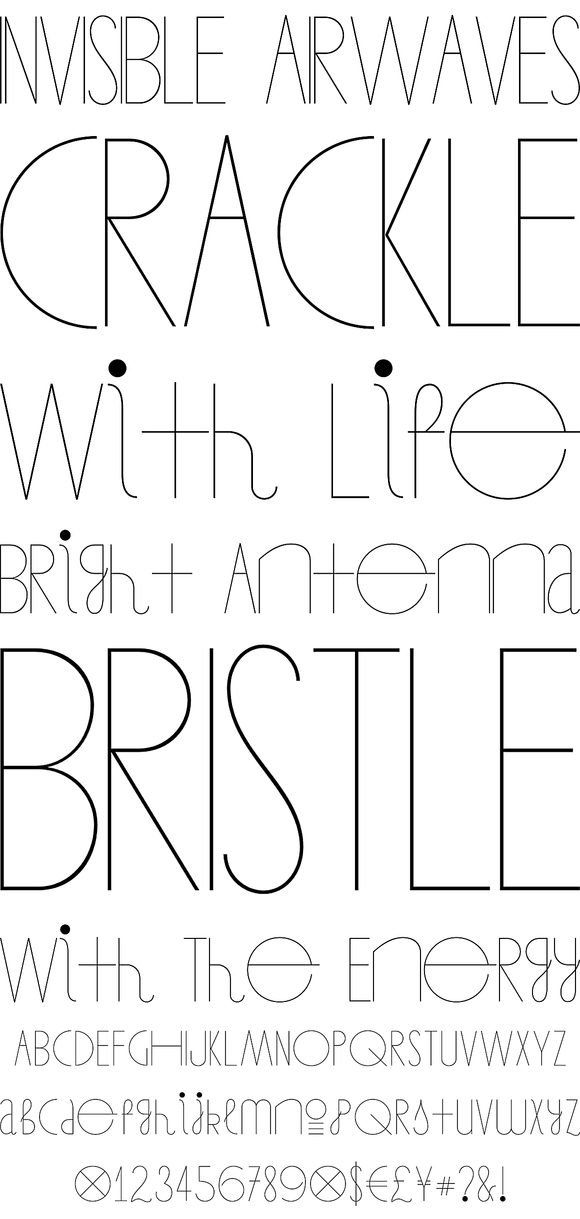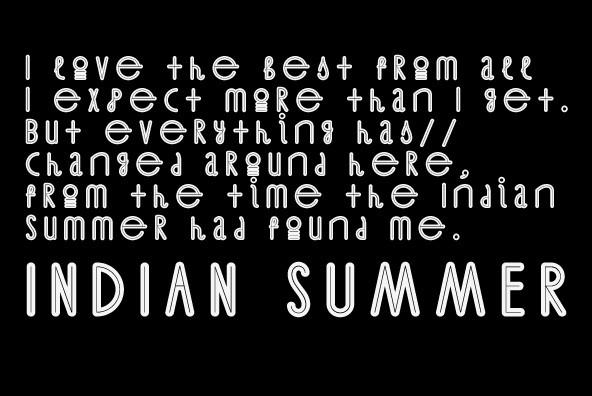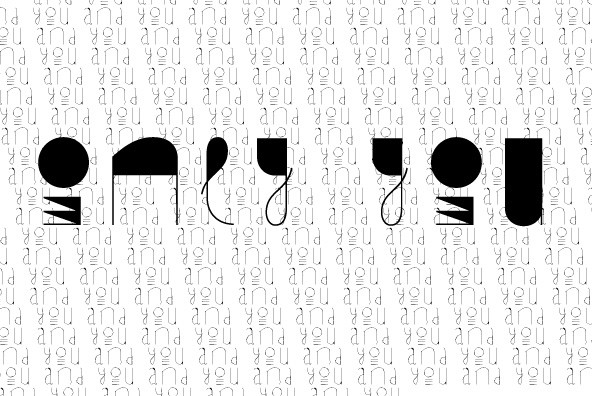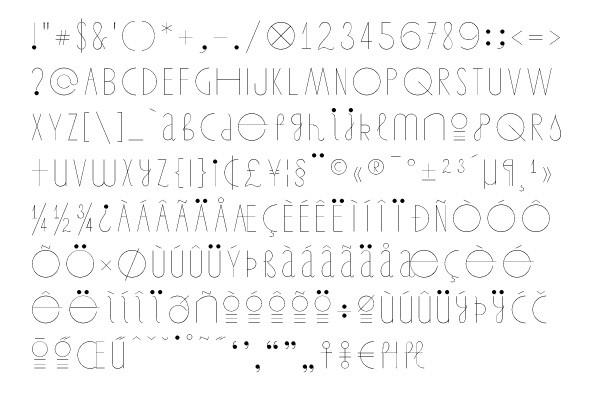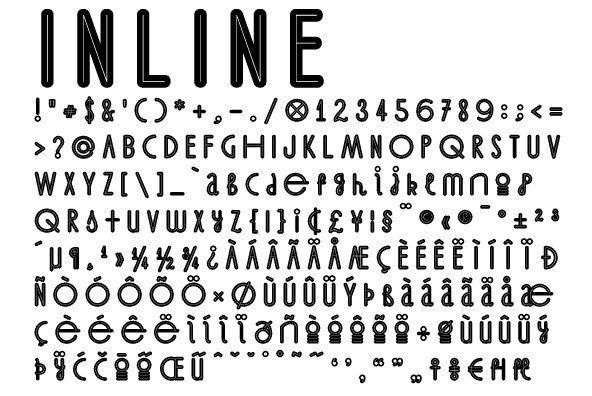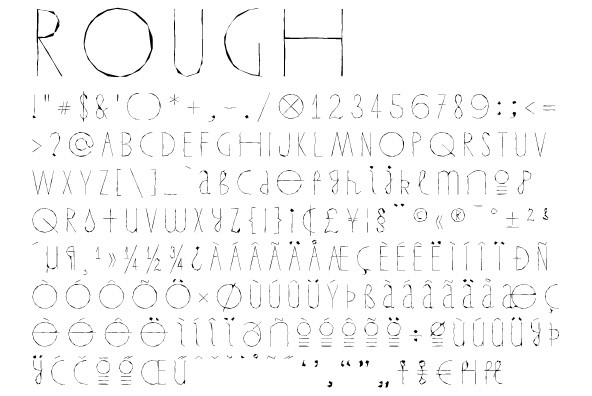
FR Ceruza (pencil in Hungarian) is a result of lazy pen sketchings, made for some illustrational stuff. It is an ideal choice for short texts and titles.